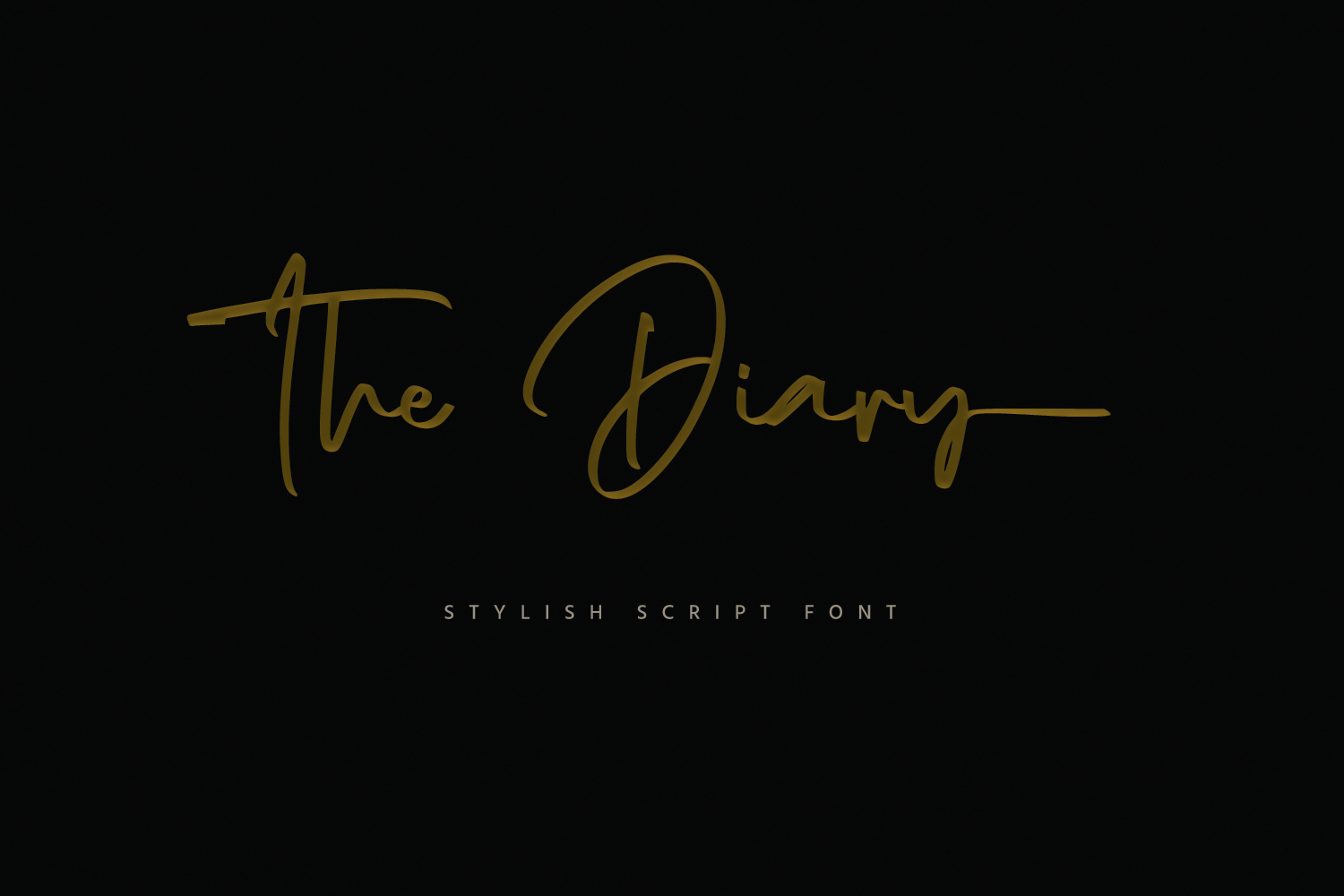
The Diary // Stylish Script Typeface
Find script fonts with natural and modern styles to make your designs even more phenomenal !
The Diary is an original script font with a modern, contemporary style and beautiful, natural flow. This font is perfect for many projects such as logos & branding, invitation, stationery, wedding designs, social media posts, advertisements, product packaging, product designs, label, photography, watermark, and others.
- Multilingual Support for 83 Country
- Ligature Collection
- Special underline